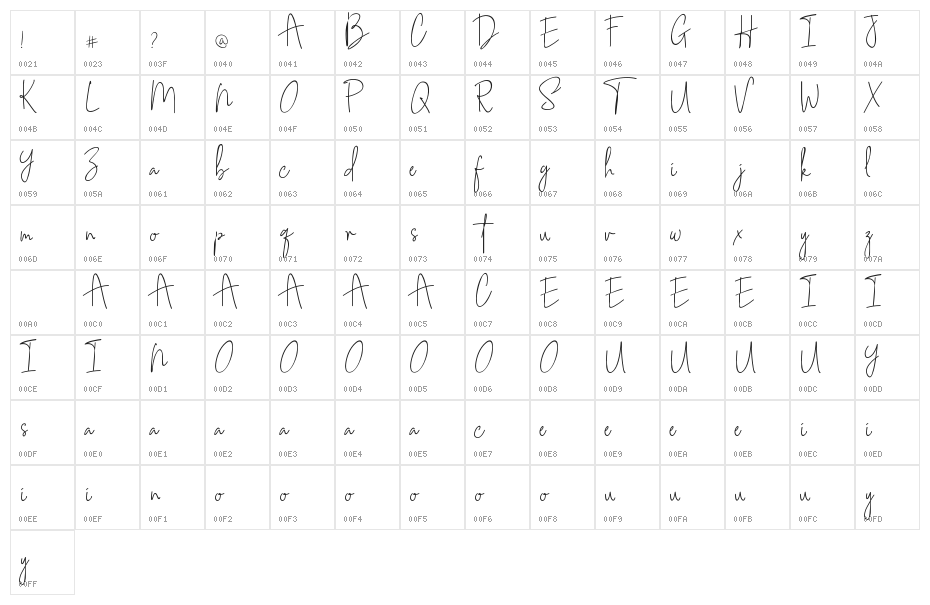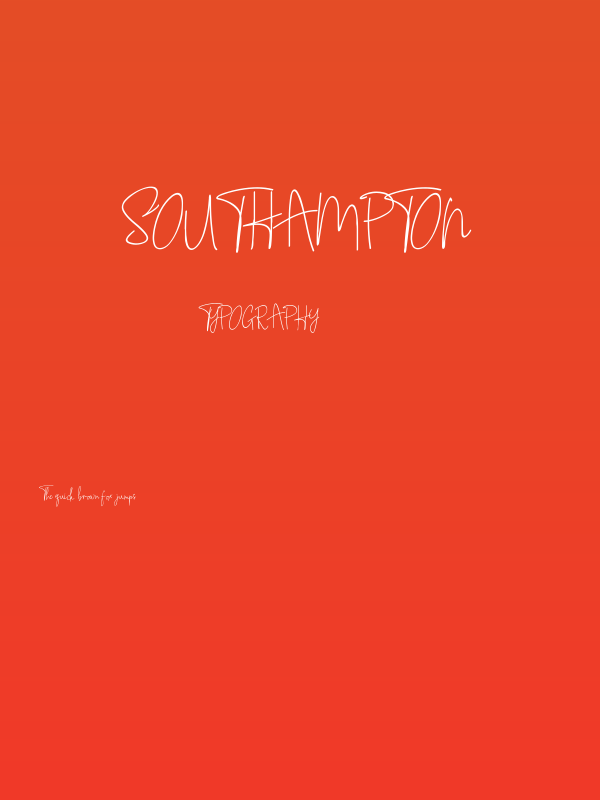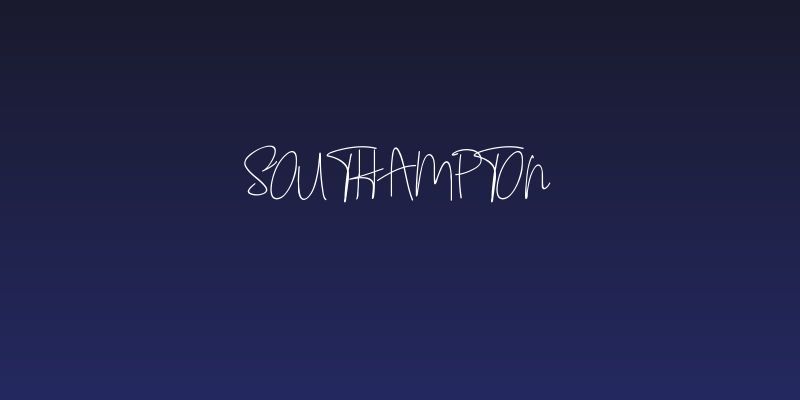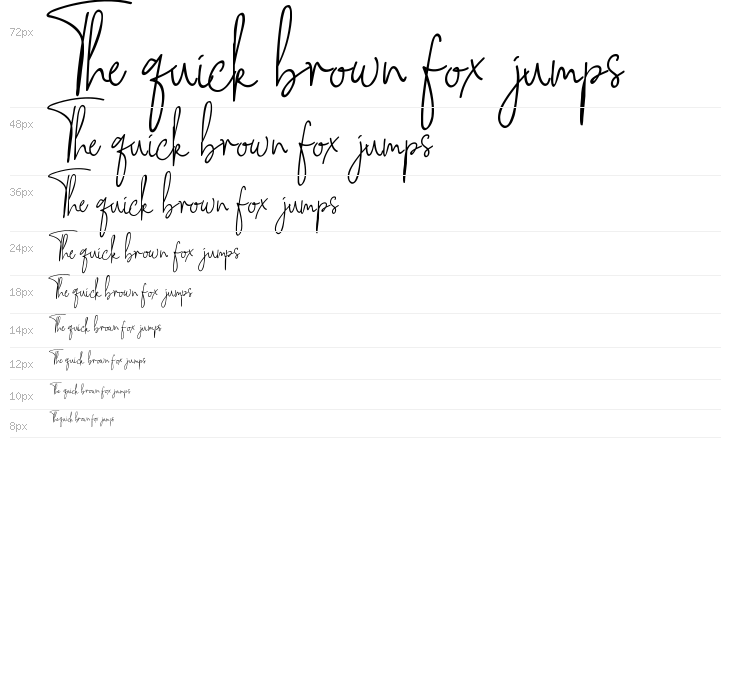
Southampton Font
Southampton Description
This font features a playful and dynamic handwritten style, characterized by its tall, narrow letters and fluid strokes. The uppercase letters exhibit a sense of movement with their elongated forms and slightly irregular lines, giving a casual yet sophisticated appearance. The lowercase letters maintain this fluidity, with some letters connecting seamlessly, enhancing the handwritten feel. The numbers and special characters follow the same style, ensuring consistency across all glyphs. The overall look is modern and artistic, making it suitable for projects that require a personal touch.
| Overall Style | Modern, Artistic |
| Proposed Projects | Ideal for invitations, greeting cards, personal branding, and creative projects that require a personal, artistic touch. |